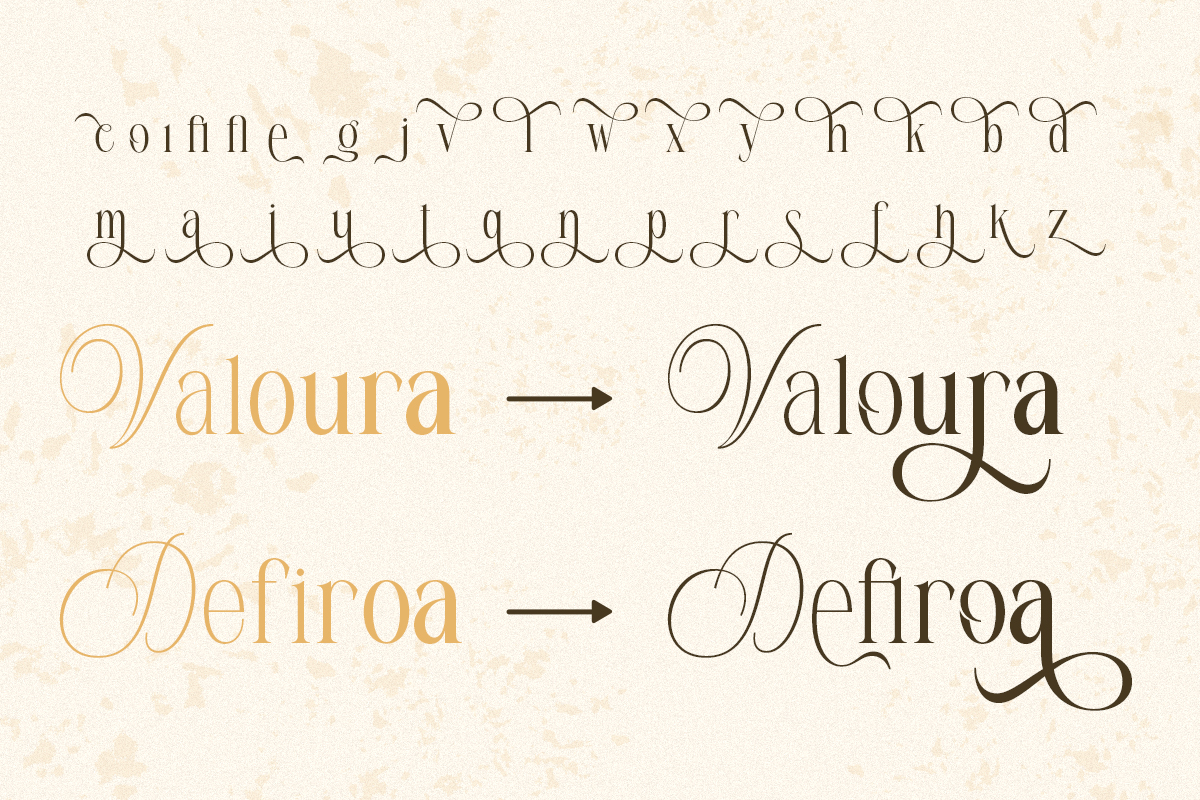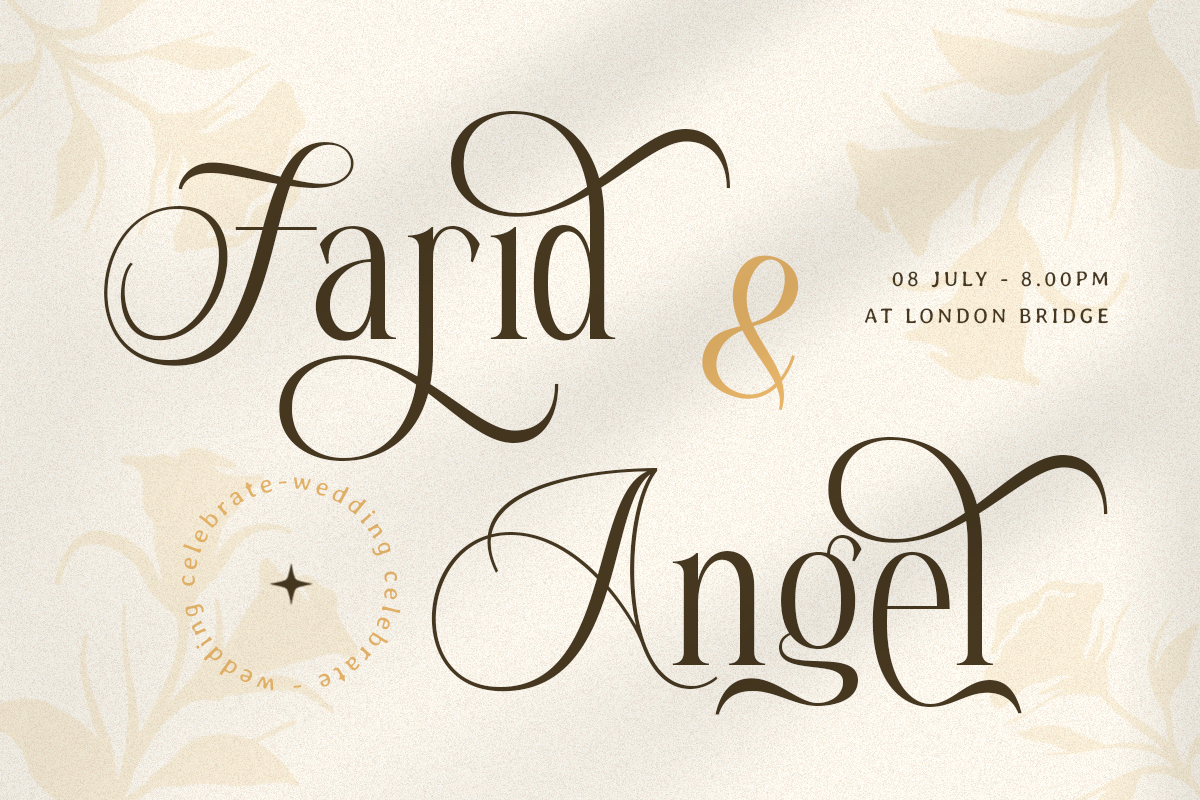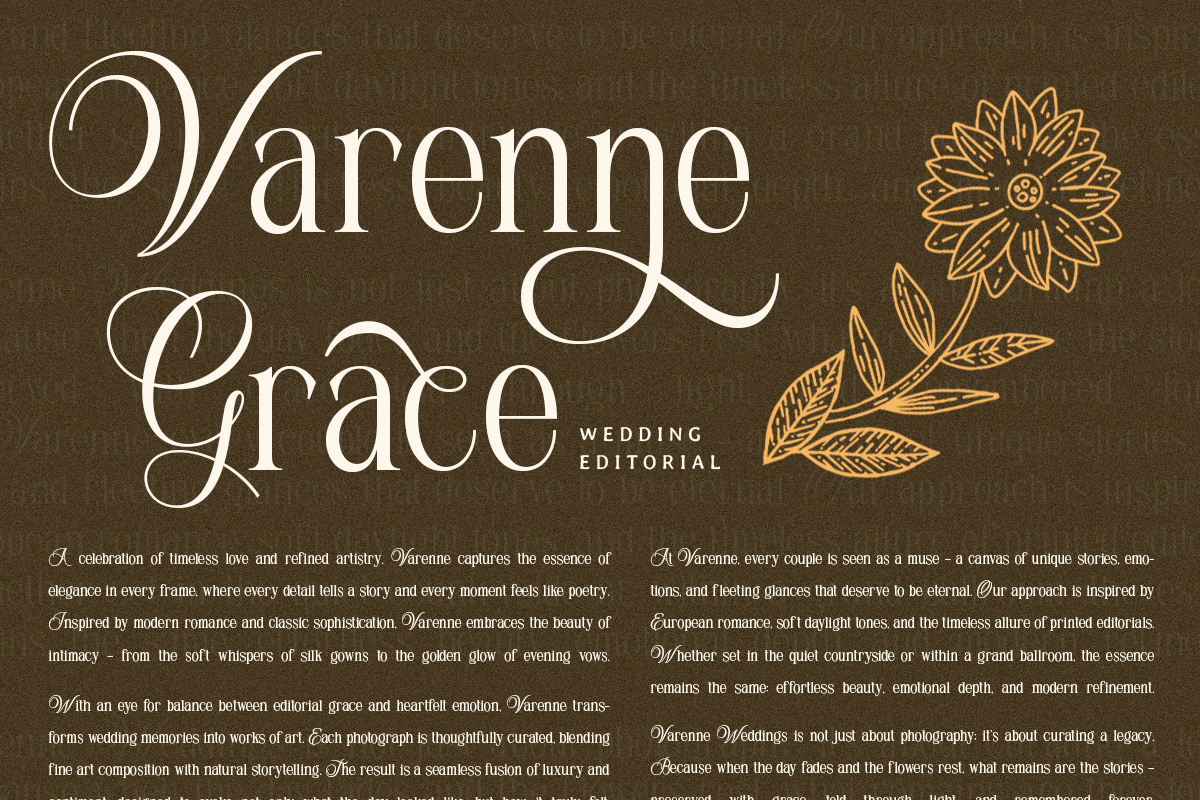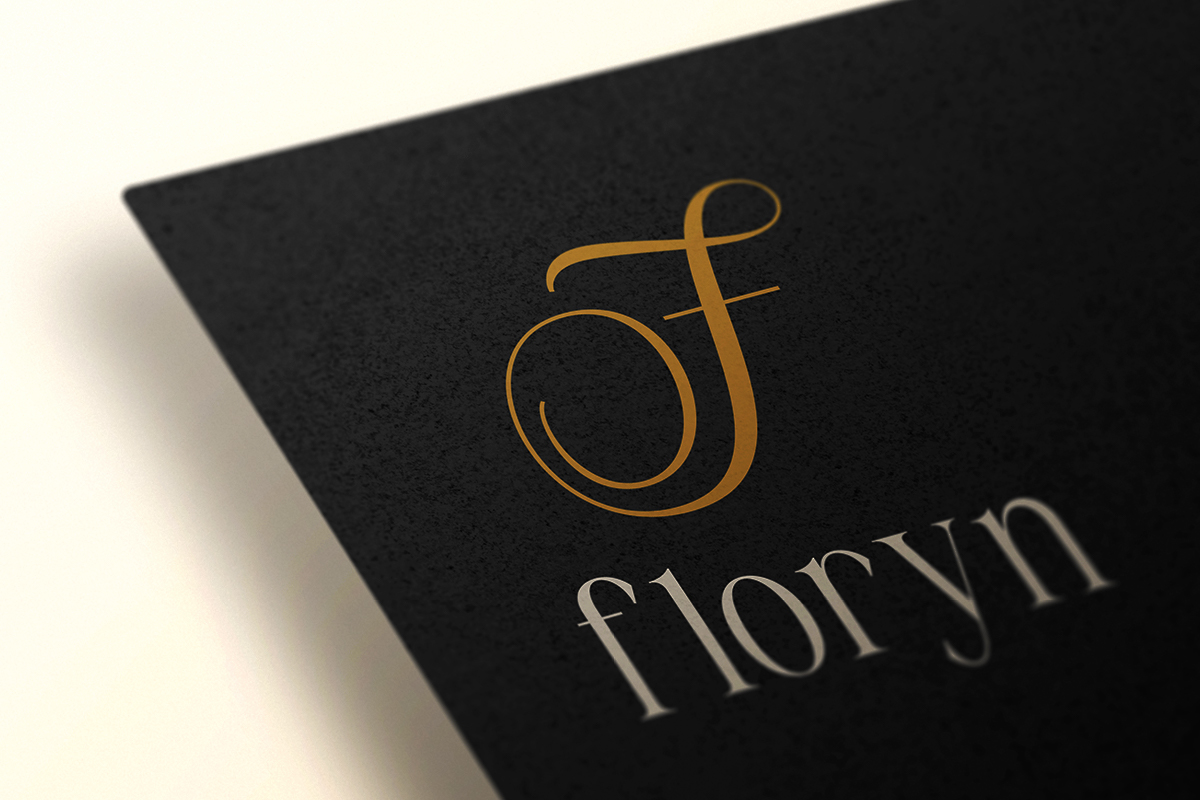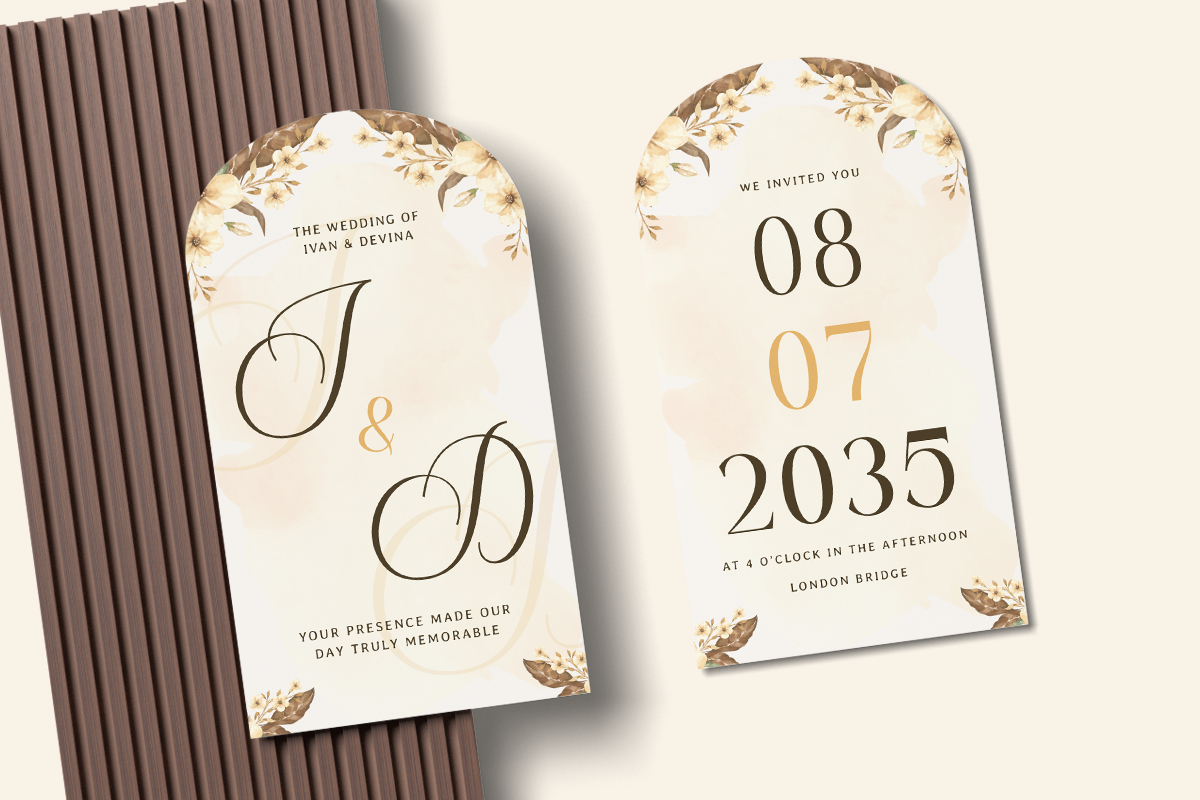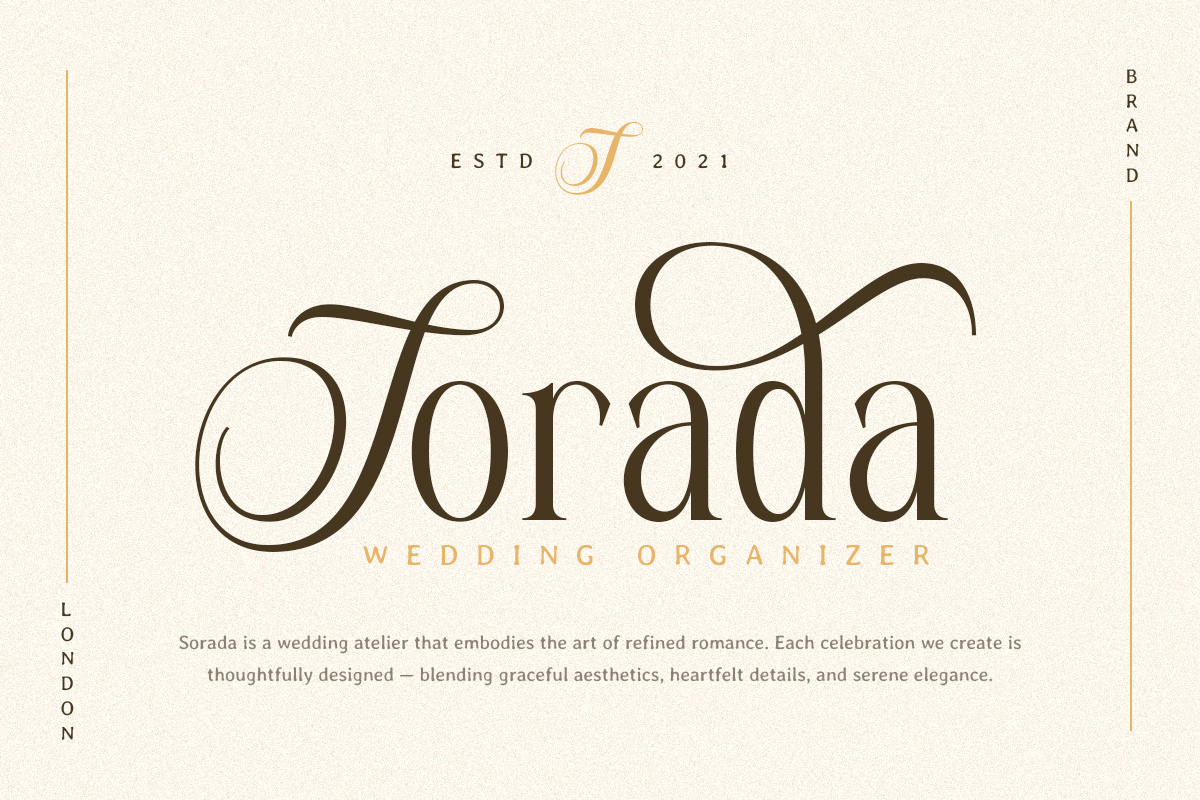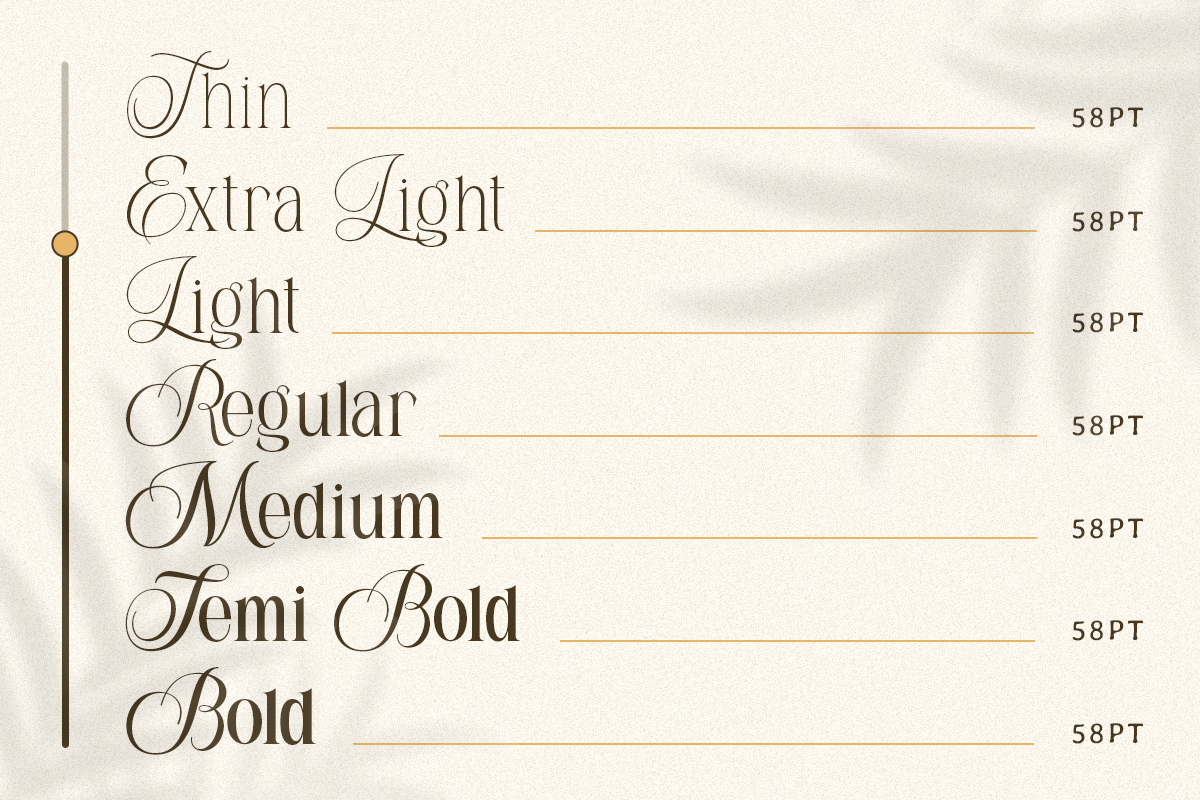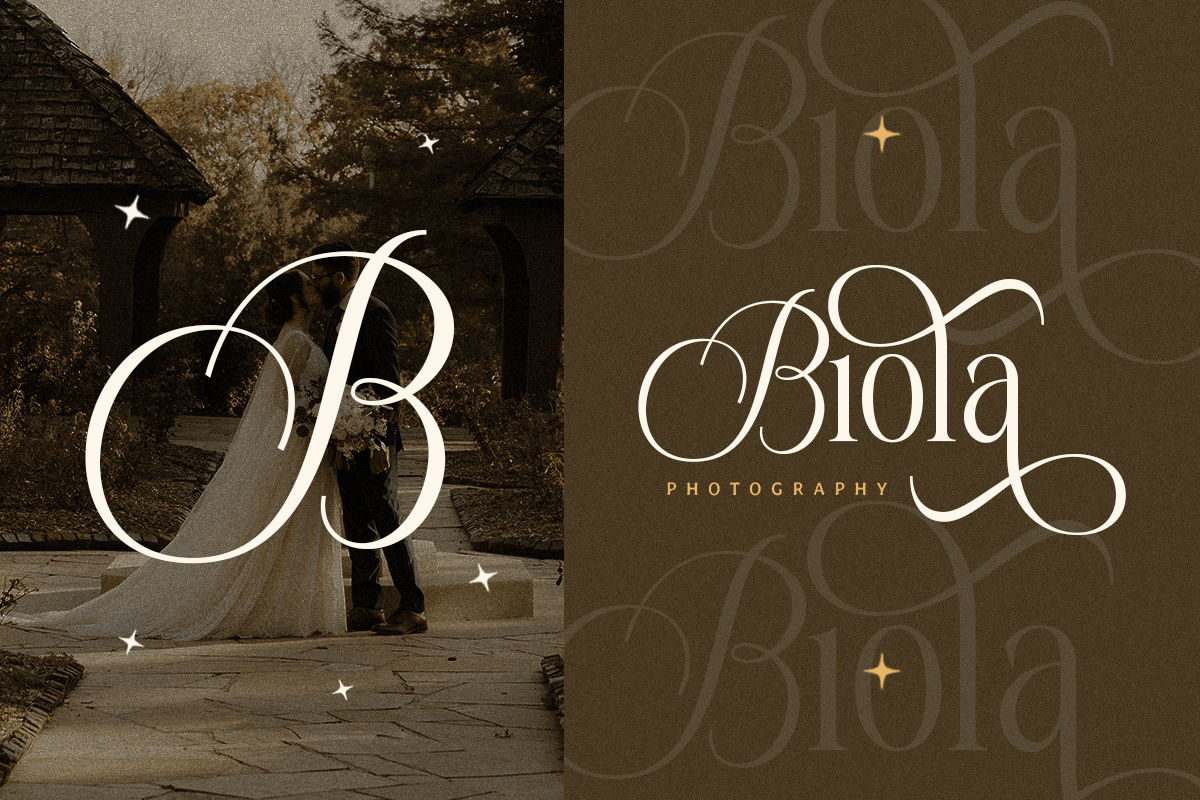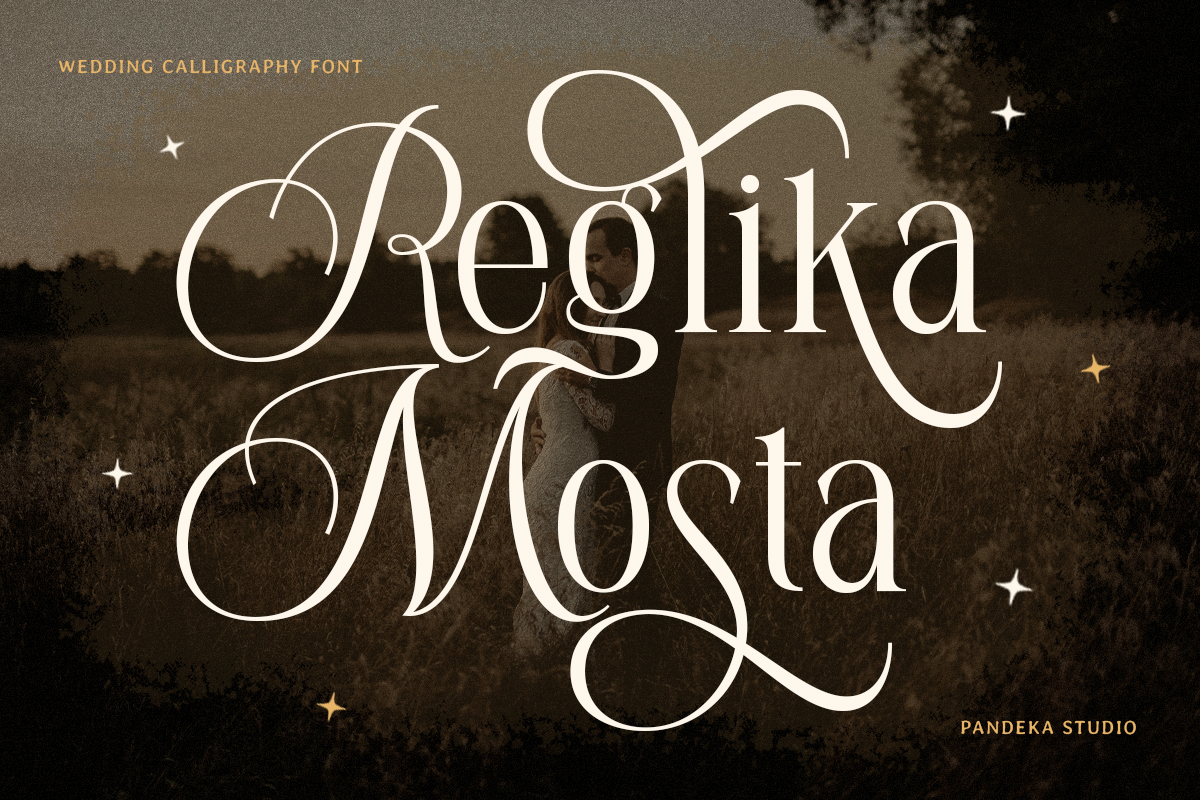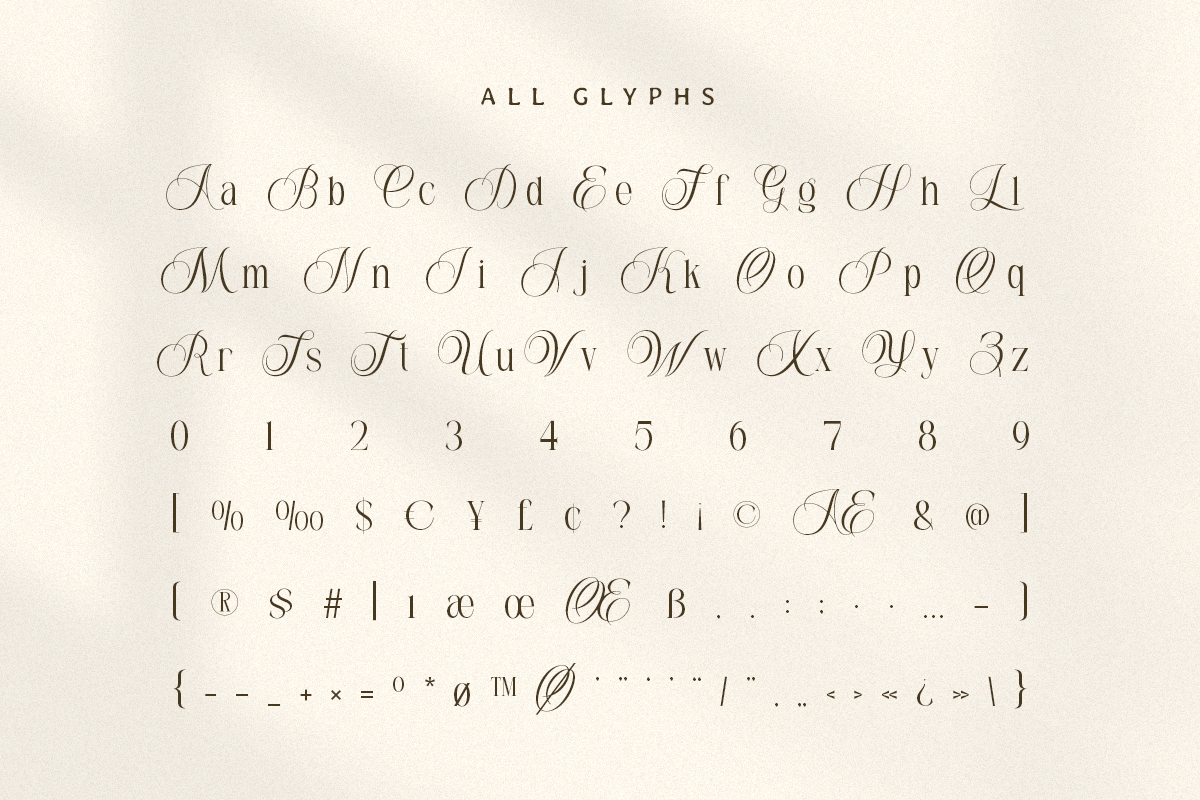
Reglika Mosta - Wedding Family Font
Reglika Mosta is an elegant wedding-themed serif family font designed to bring luxury, romance, and refinement to your most meaningful projects. With graceful curves, soft calligraphic accents, and timeless serif structure, this font blends classic beauty with modern sophistication—perfect for high-end wedding branding and formal visual design.
This family includes 7 styles — Thin, Extra Light, Light, Regular, Medium, Semi Bold, and Bold, giving designers full flexibility to create cohesive invitations, editorial layouts, personal monograms, event branding, and refined typographic hierarchies.
Reglika Mosta also comes with an advanced Variable Font, allowing smooth weight adjustment for digital design, responsive layouts, and precision typography. Paired with 23+ beautiful alternates, you can easily craft expressive wedding logotypes, elegant name pairings, decorative initials, and signature-style titles.
- 7 Styles Family: Thin, Extra Light, Light, Regular, Medium, Semi Bold, and Bold
- Full Character Set: Uppercase, lowercase, numbers, symbols, and punctuation
- 23+ Elegant Alternates
Perfect for wedding invitations, luxury stationery, photography branding, event organizers, boutique packaging, elegant quotes, and premium editorial projects — Reglika Mosta delivers a romantic, polished, and memorable aesthetic.